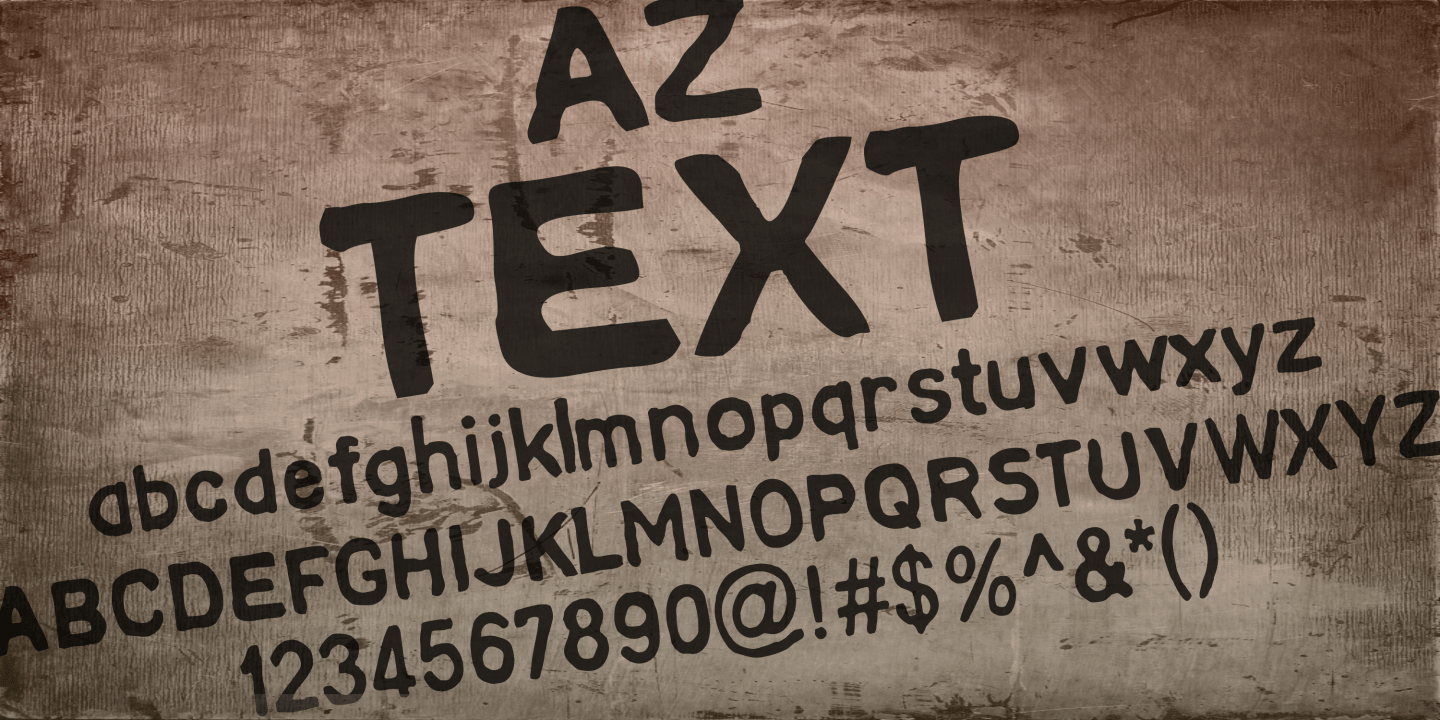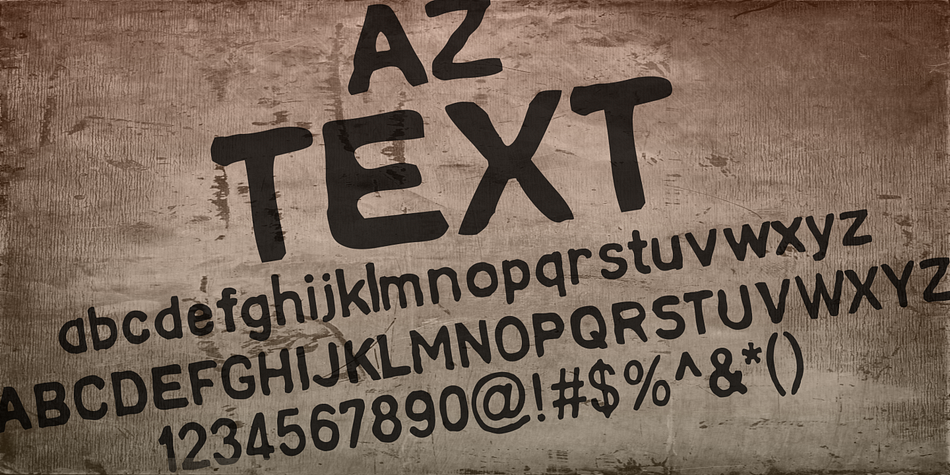
AZ Text is a hand drawn font published by Artist of Design.
AZ Text font was inspired from a need for a generic worn san serif text of letters that looks old.
This font utilizes an “old look” to the line work which is designed to have a “worn feel” to it.
Ideal for use as the body or text text in you design.